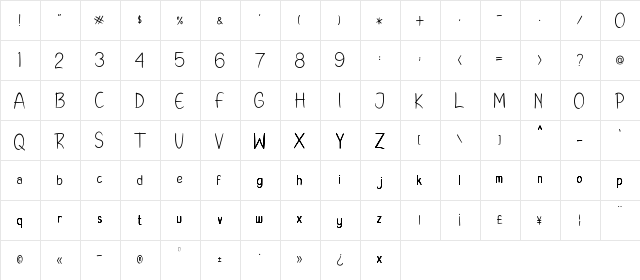
KIDS ZONE Regular Font Preview
KIDS ZONE Regular
KIDS ZONE Regular Font Details
Design Context for KIDS ZONE Typeface
KIDS ZONE trades formality for fun, with bouncy, characterful letterforms that bring warmth and energy to any project.
Font Pairing: Pairs well with a rounded or humanist sans for body copy, maintaining the friendly tone without relying on KIDS ZONE to carry extended reading.
Pro Tip: Avoid using KIDS ZONE for long passages of text — it works best for headlines, labels, and short calls to action.